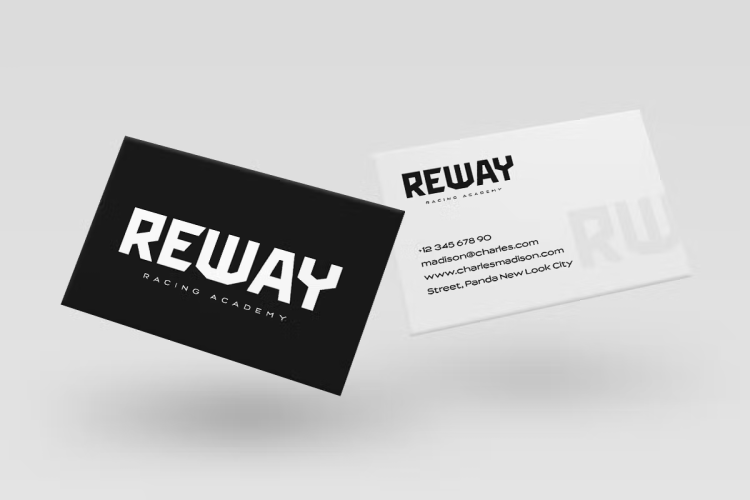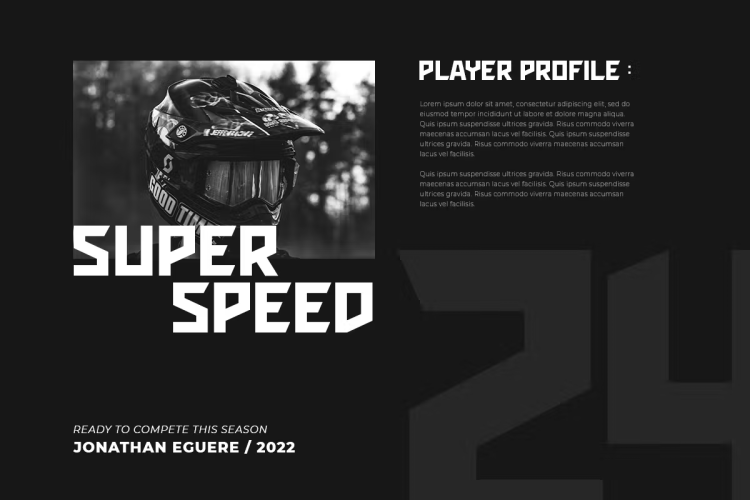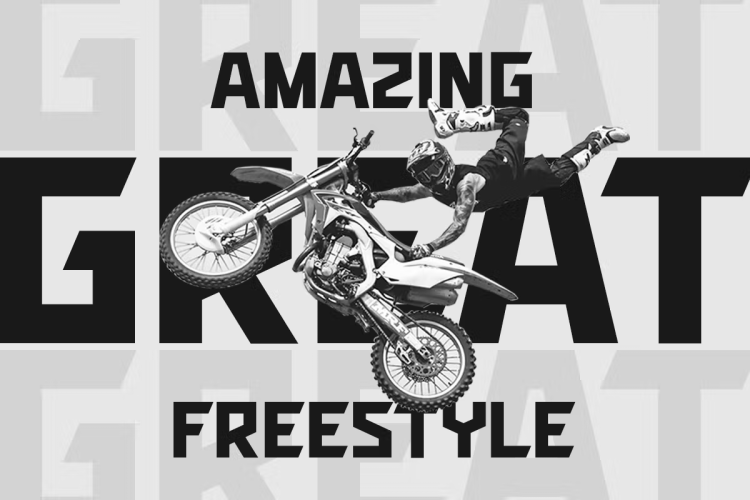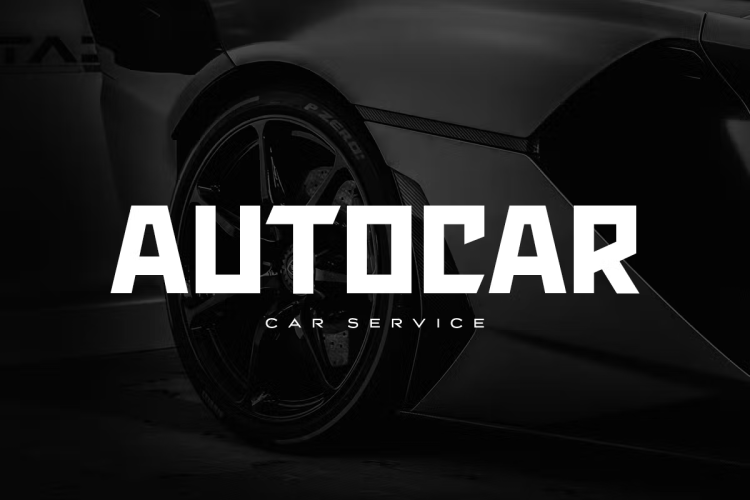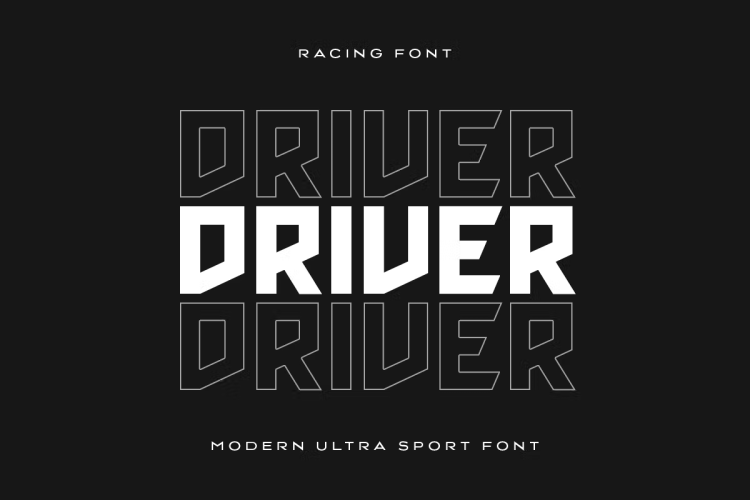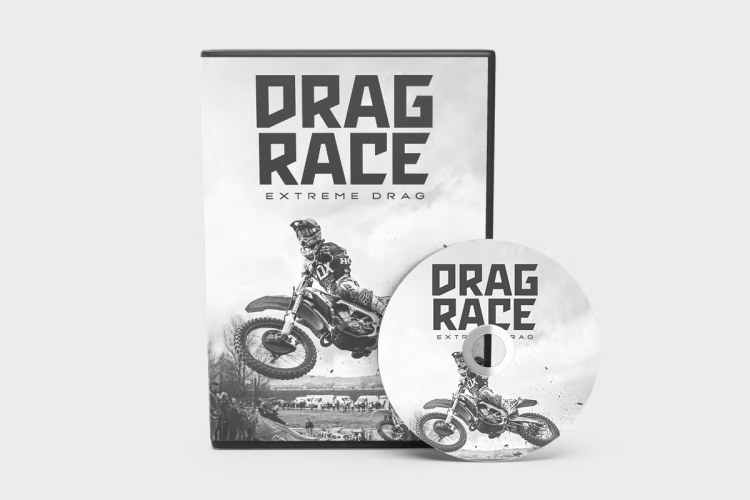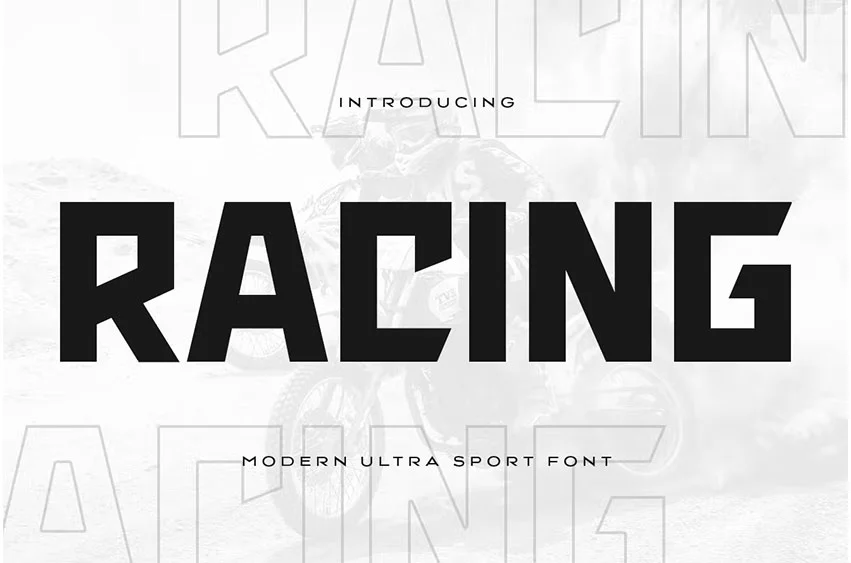
Racing Font
Racing Font is a Modern Ultra Sport font that created specially for Branding, Title, and more stand-out typography for sport and action. It’s so perfect to add your styl…
Racing Font is a Modern Ultra Sport font that created specially for Branding, Title, and more stand-out typography for sport and action. It’s so perfect to add your style and headline overview for sport, technology, actions, and fighting theme. And especially for this font, we crafted for bold action style and modern feels so enjoy to create any project that will show your main idea out.
Where Racing Font works best
Racing Font stays legible at small sizes, which makes it a strong choice for navigation, buttons and dashboards in web design and app interfaces.
Clean sans serifs like Racing Font are the default language of SaaS, fintech and product branding.
What is Racing Font good for?
Racing Font is a Sans Serif Fonts typeface tagged Bold, Branding, Modern, Sans Serif. It works well for headlines, logos, posters, social media graphics and branding projects that need a distinctive sans serif fonts look.